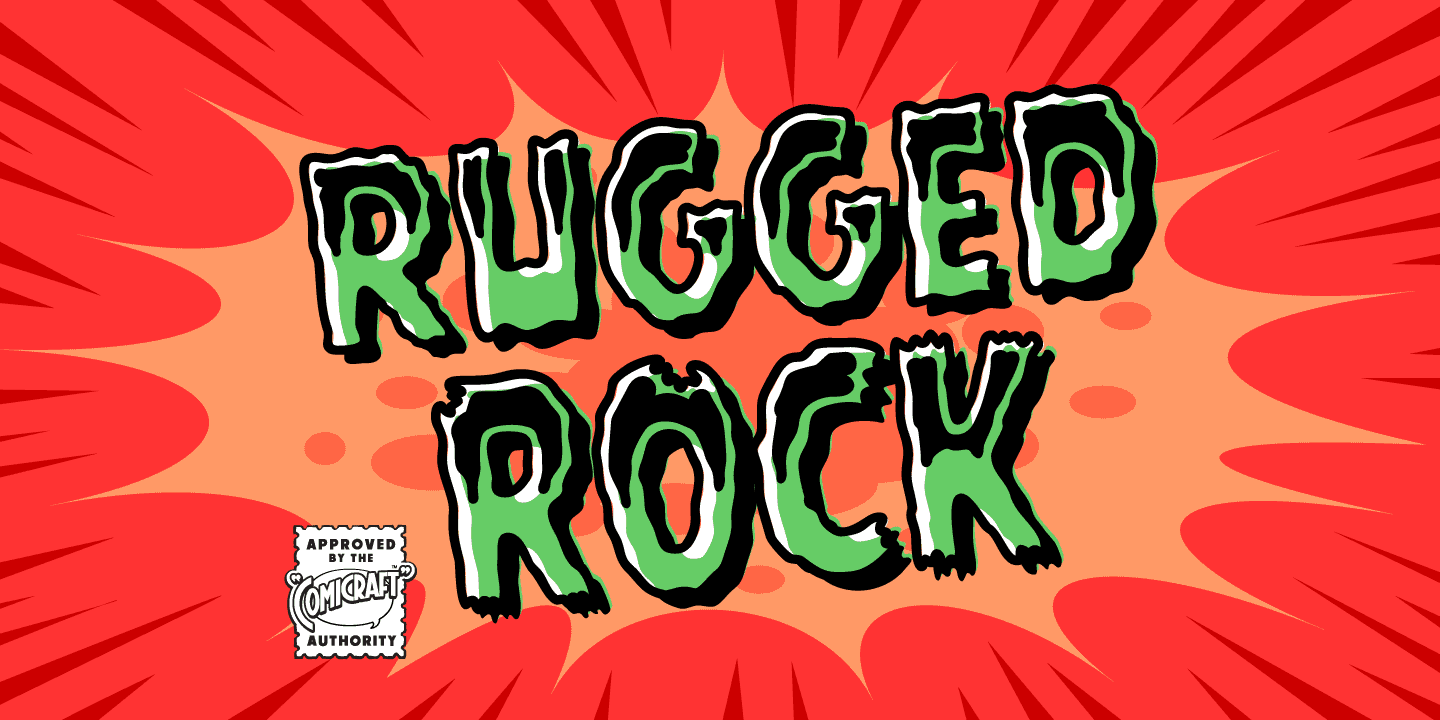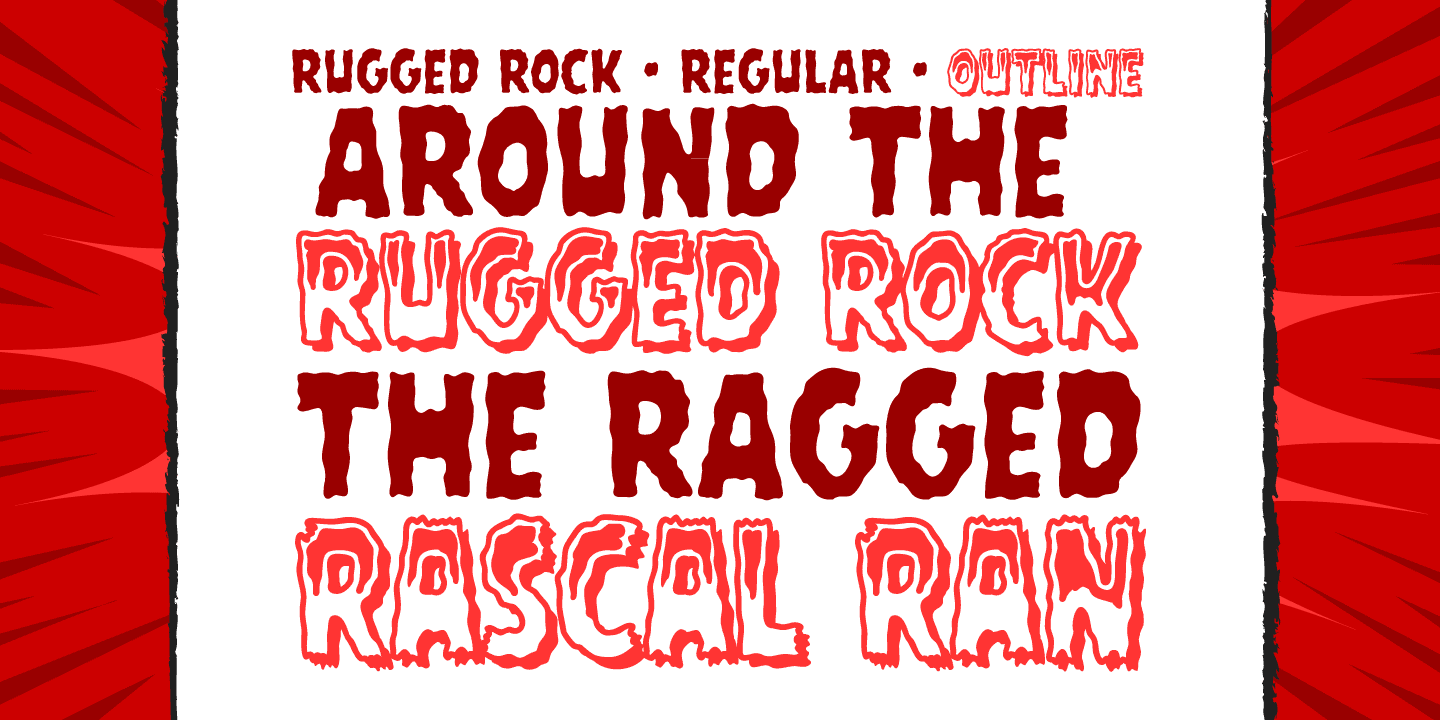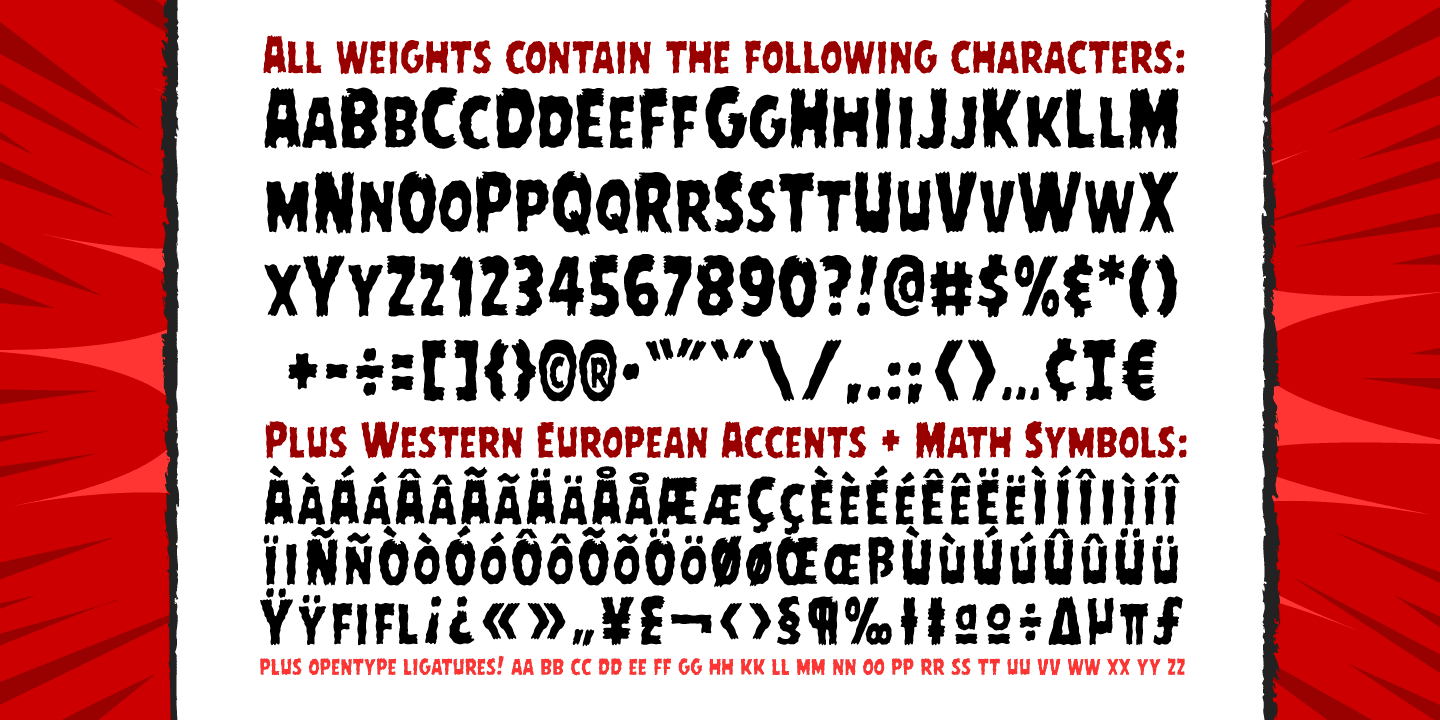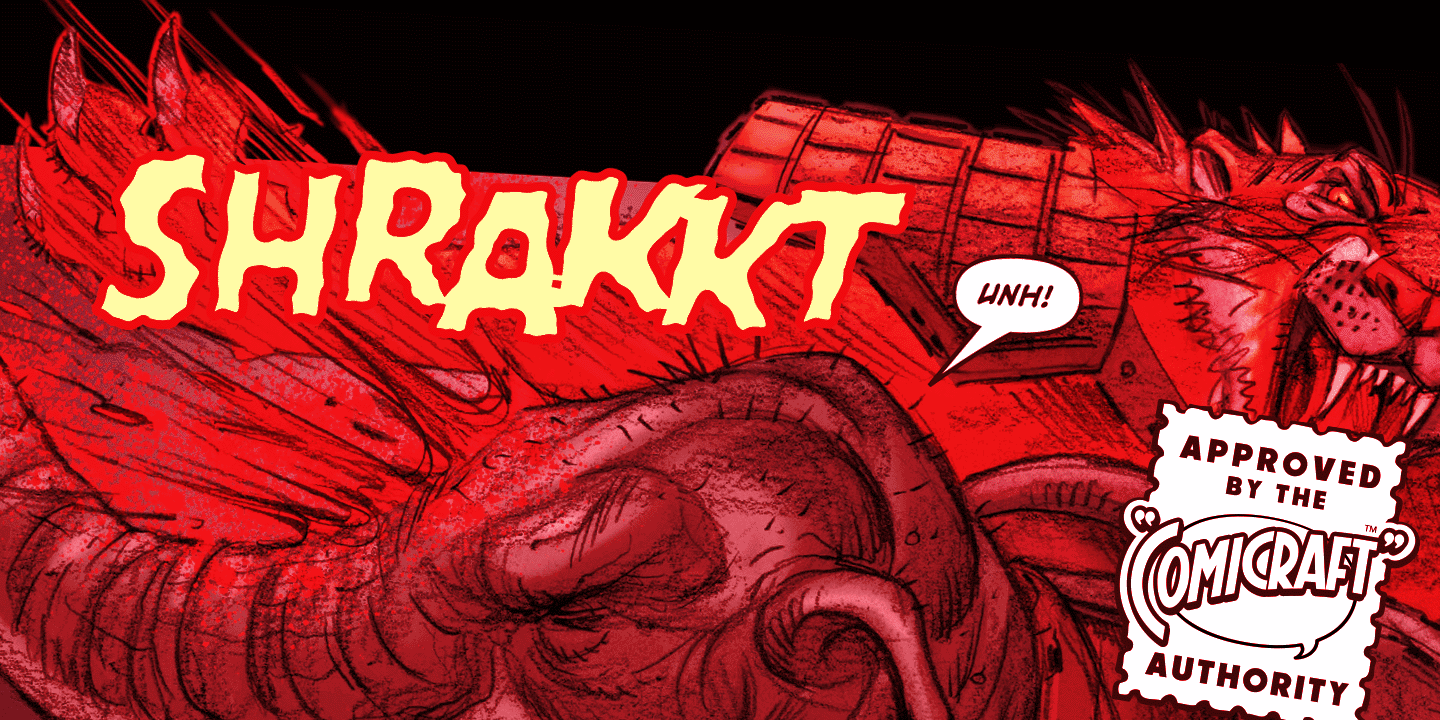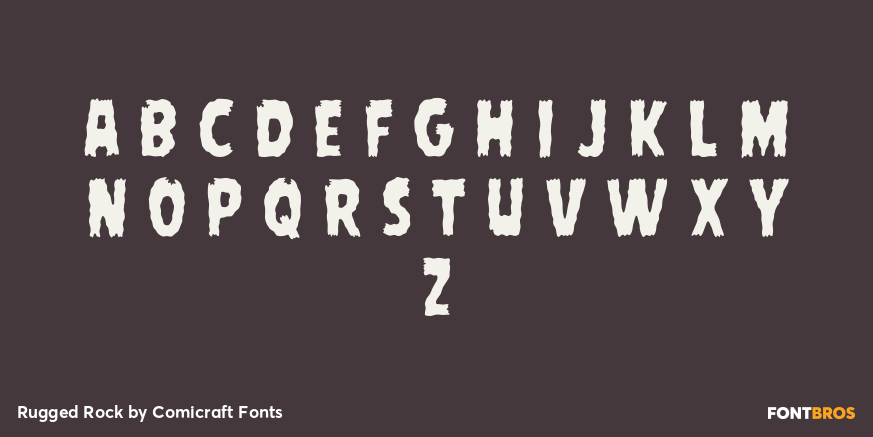
Rugged Rock
Font Family by Comicraft Fonts
Around the rugged rock the ragged rascal ran,
Foregoing fancy fonts, the fontographer fawned and fell.
Alliteratively allowing for assonant aspects as well,
He spoke of several sentences that some should never spell!
This classic title font will deliver tall tales that tell!
Rugged Rock Regular
Rugged Rock Outline